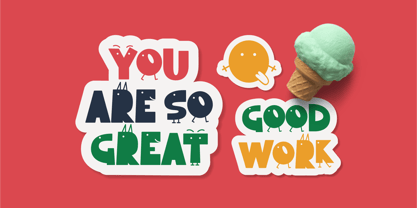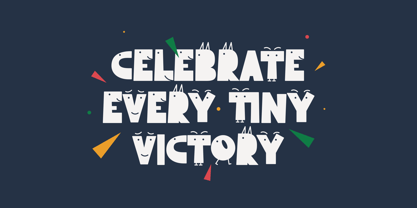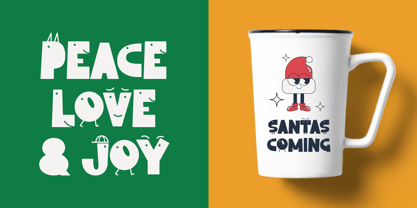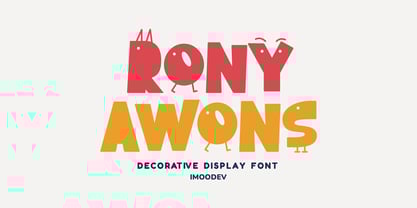
Rony Awons
by Imoodev
The Rony Awons Font Family was designed by Aulia Savira Putri and published by Imoodev. Rony Awons contains 1 styles. More about this family
Rony Awons is a playful font, its irregular shapes and tiny details make it feel hand-drawn. Each letter has a unique, cartoon-like personality, featuring small details like eyes, legs, hats, and expressions—whether smiling or sleepy-eyed.
Rony Awons a childlike, joyful energy that making perfect for children’s books, posters, greeting cards, children’s content, children’s book, animation, cartoon, headline, merchandise, branding with a friendly touch, or anything that aims for a fun and engaging visual style!
Designers: Aulia Savira Putri
Foundry: Imoodev